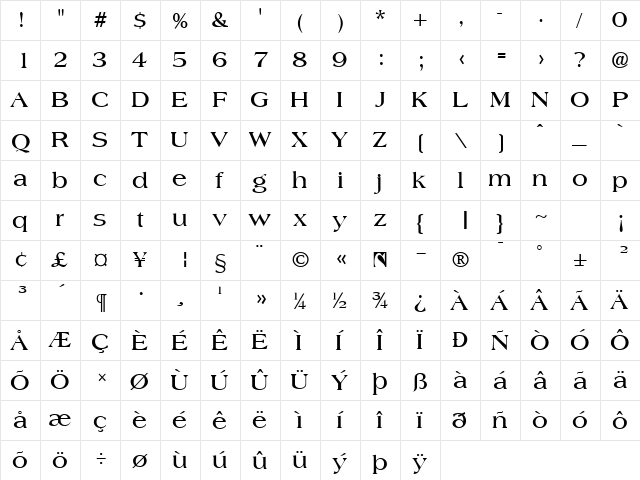
Aphid fed
Design Context for Aphid Typeface
Aphid takes a measured approach to typography — its balanced proportions and neutral character make it a reliable workhorse for both digital and print work.